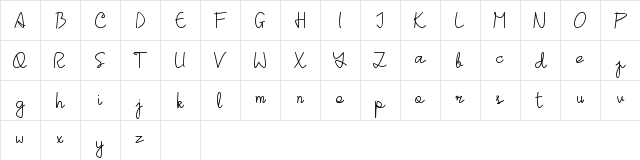
Yudistira Regular
Complete Yudistira Regular glyph index. Displaying only characters natively supported by Yudistira Regular font.
Design Context for Yudistira
Yudistira is a composed and adaptable typeface that performs quietly and consistently across a wide range of design contexts.